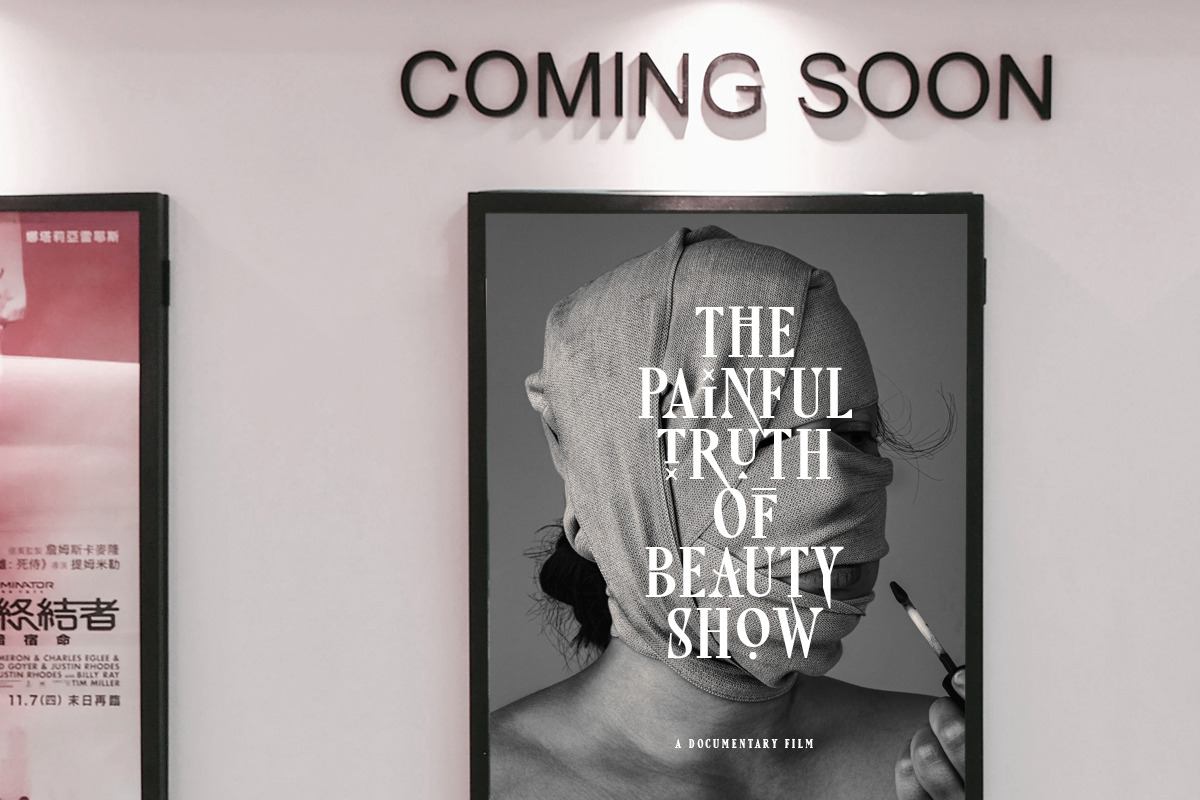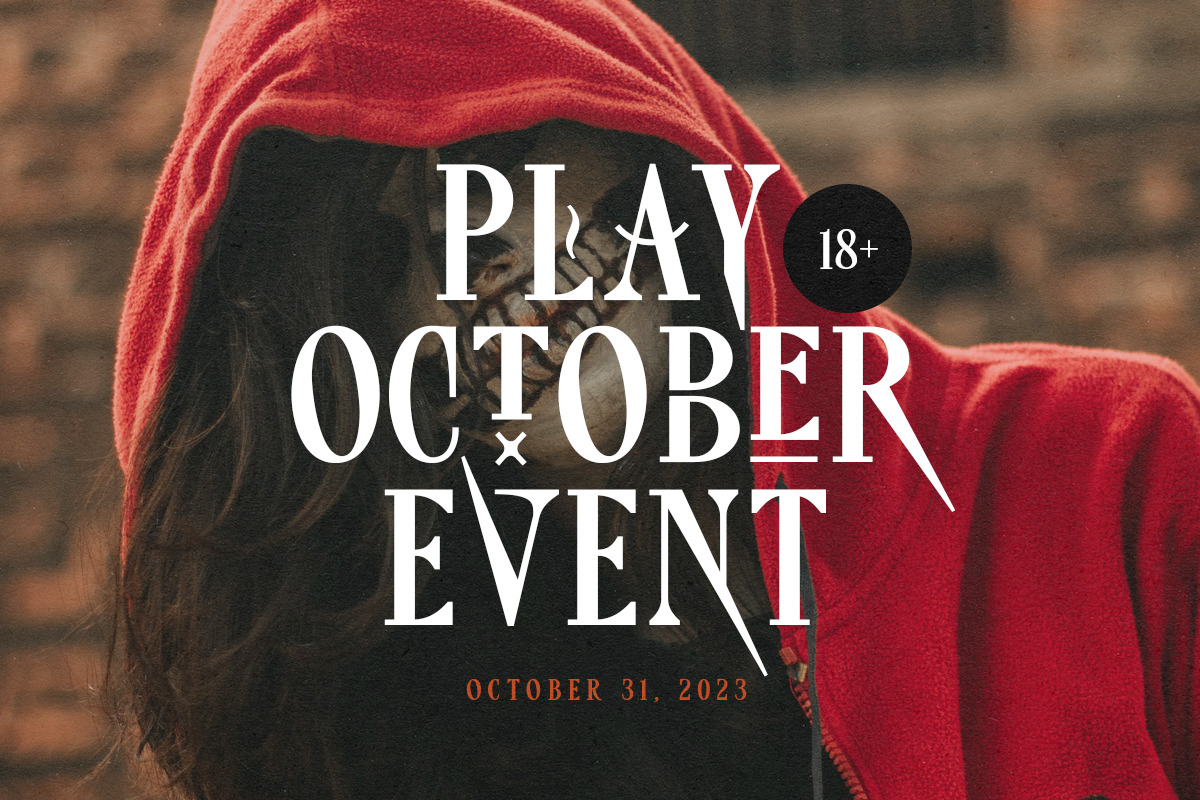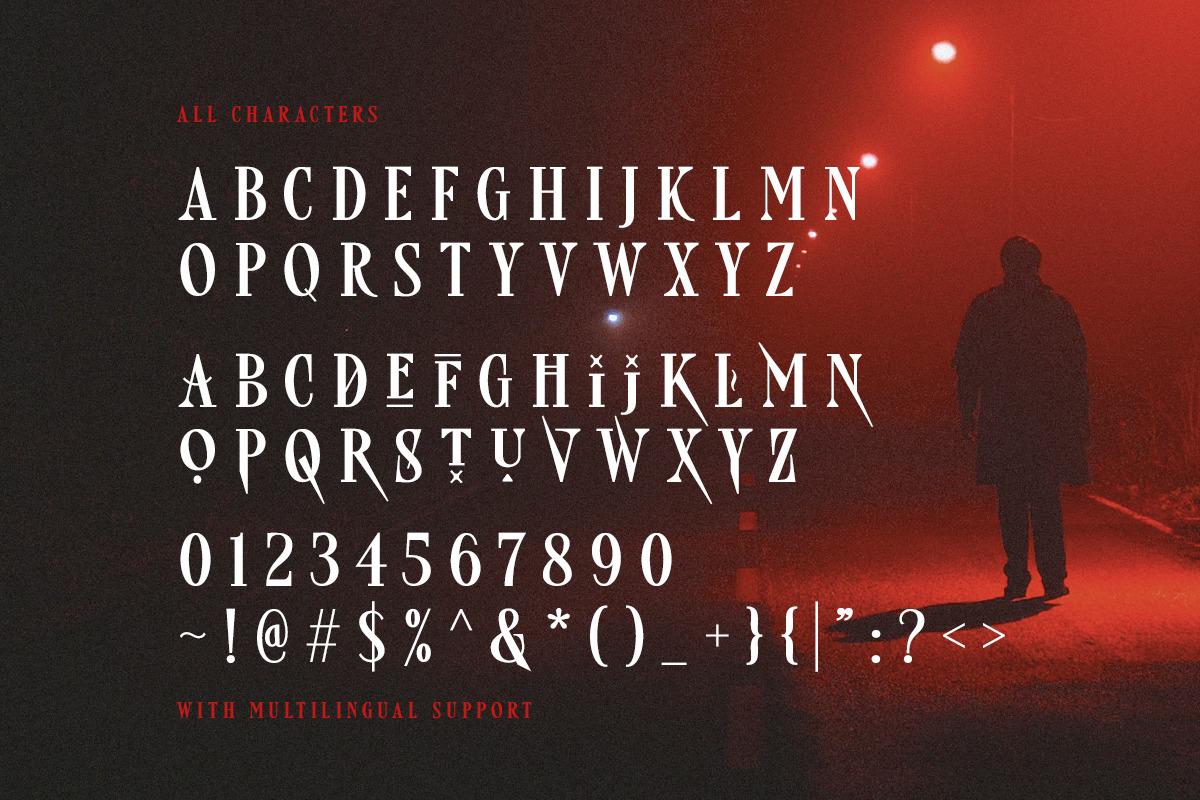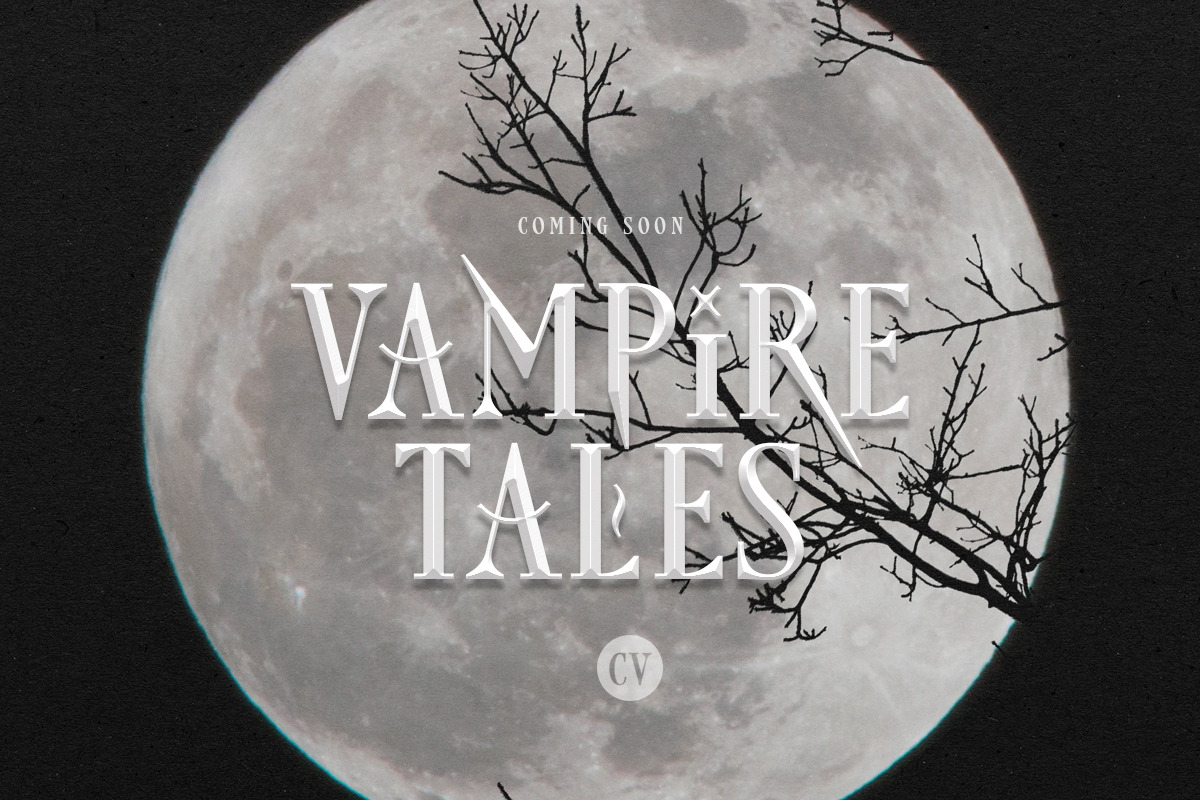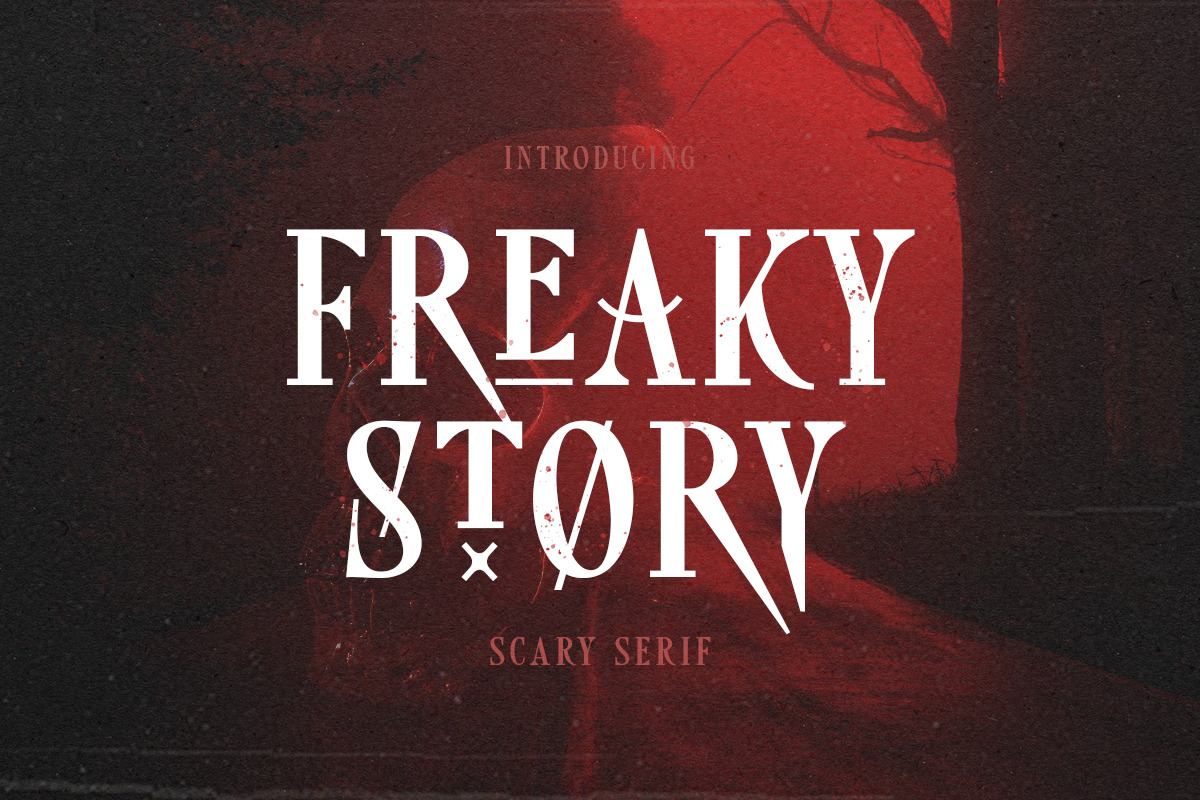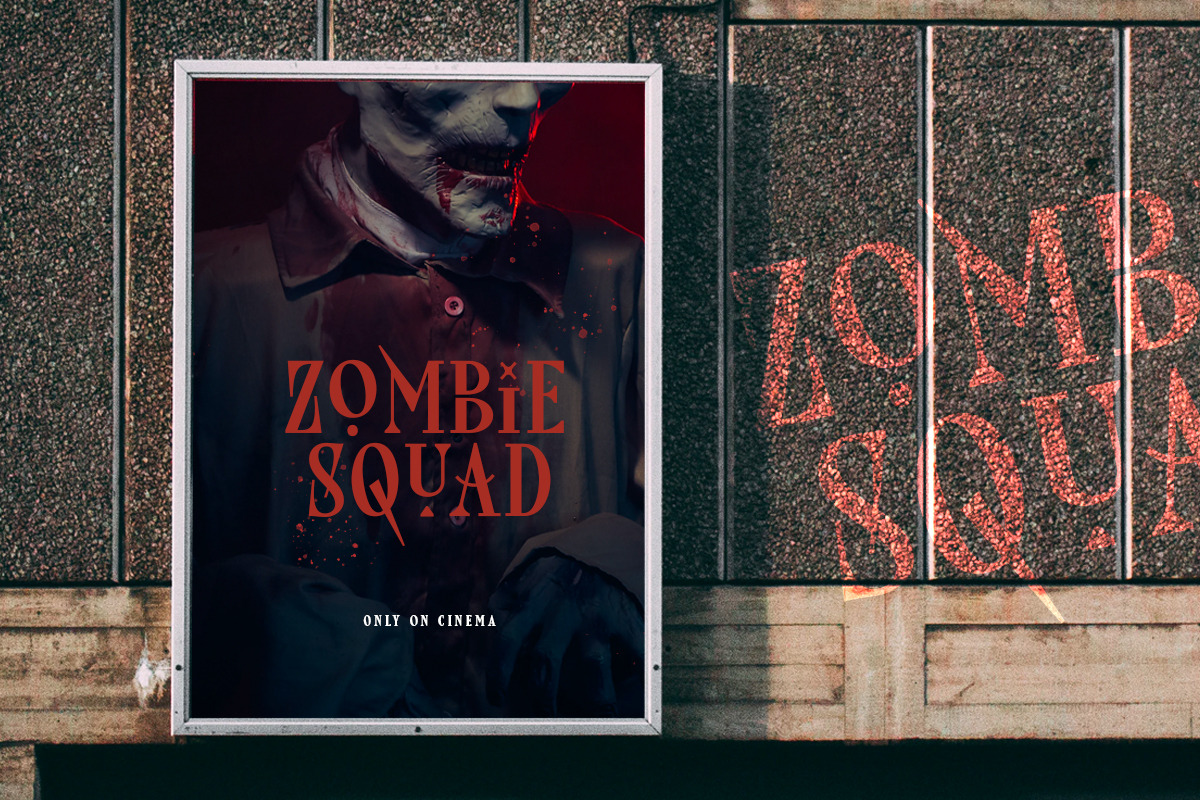
Freaky Story - Creepy Font
Freaky Story is a condensed serif with horror & creepy vibes! This serif is so unique that will make your design pop up. This font is suitable for poster movies especially thriller & horror movies. With unique lowercase, this font will make your poster more stand out and stylish! You also can use this font for any design because of the versatility in this font. Also, this font support multi language. Let's make your next halloween poster with this font!